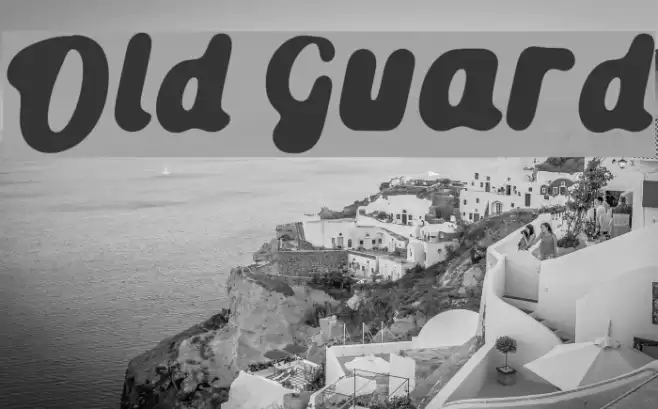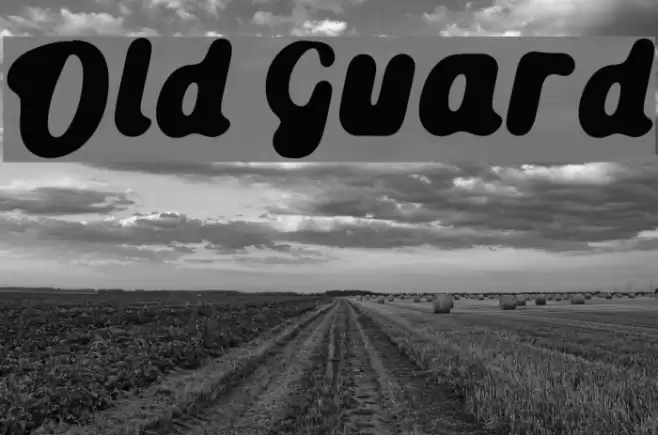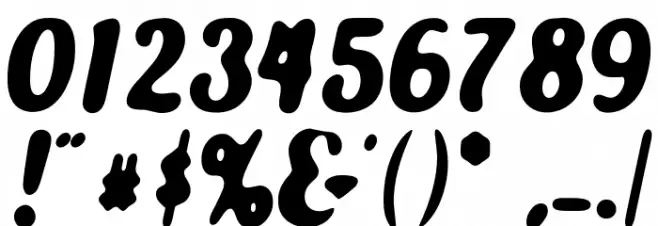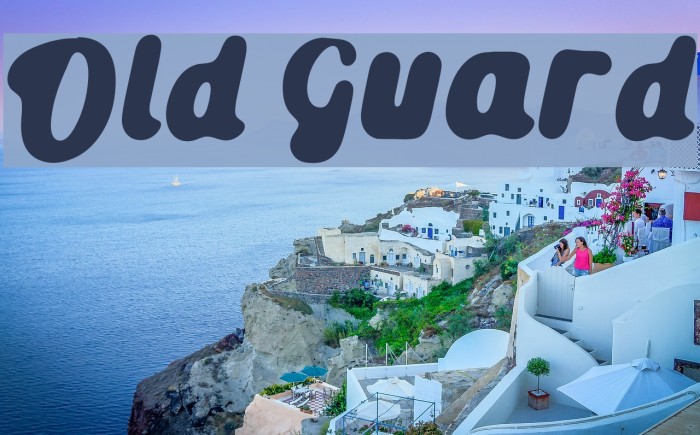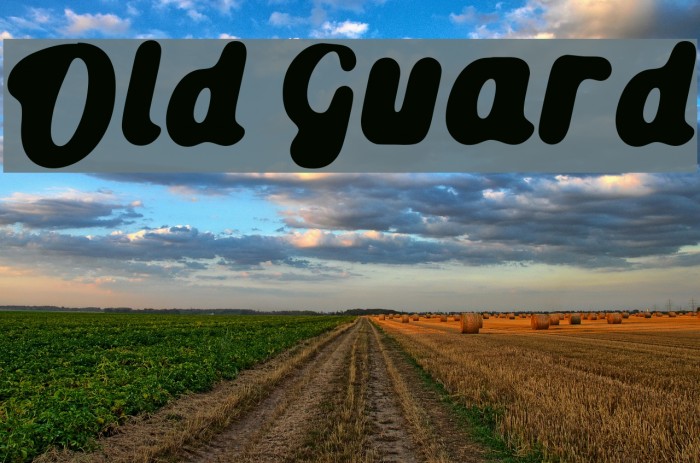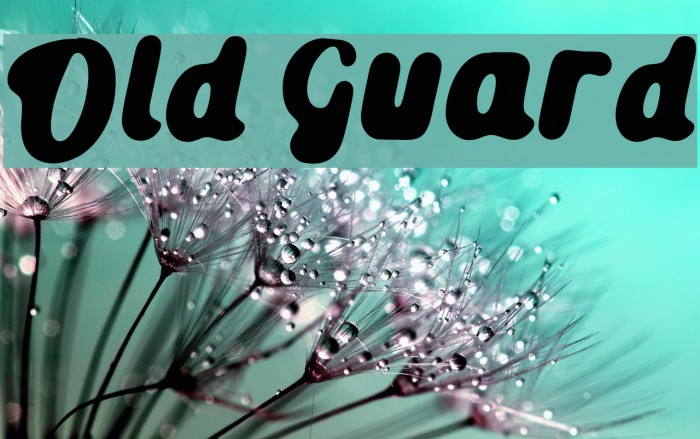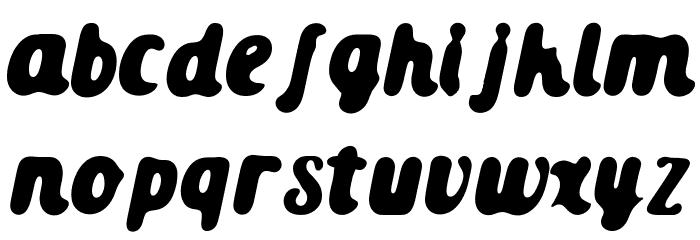
Old Guard Font
Old Guard Description
This font features a bold and playful style with a handwritten appearance. The characters are rounded and have a fluid, organic shape, giving them a lively and dynamic feel. The uppercase and lowercase letters maintain a consistent thickness, contributing to a cohesive look. The numbers and special characters follow the same design principles, ensuring uniformity across all glyphs. This font's unique style makes it stand out, offering a sense of creativity and fun.
A bold, playful handwritten font with rounded, fluid characters from Distorted Eroded fonts.
- Proposed Projects: Ideal for children's books, playful branding, greeting cards, and creative posters.
- Overall Style: Playful
- Use Case: Logos, Posters, Creative projects